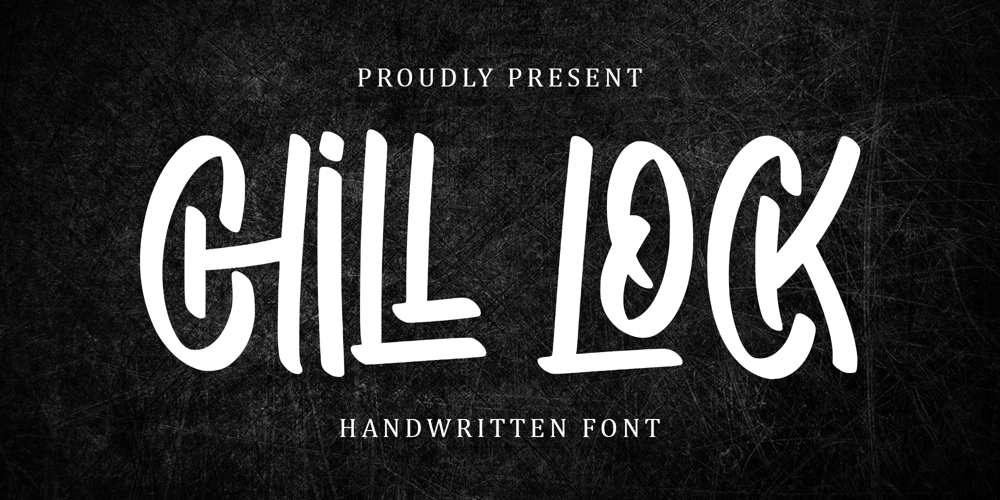
Chill Lock Font Family was designed by Alif Ryan Zulfikar and published by Sakha Design. Chill Lock contains 2 styles and family package options. Discover the elegance and charm of our new handwritten fonts! Perfect for touch to your designs, invitations, and social media posts. Our fonts are crafted to capture the beauty of hand-lettering, giving your projects a unique and artistic flair. Try it today and see the difference!